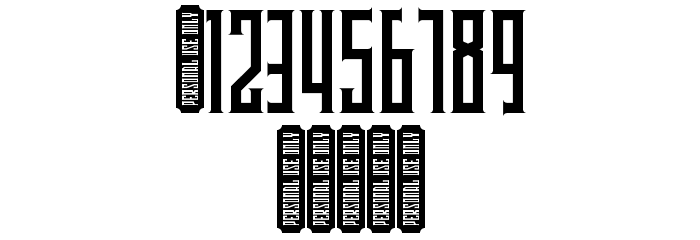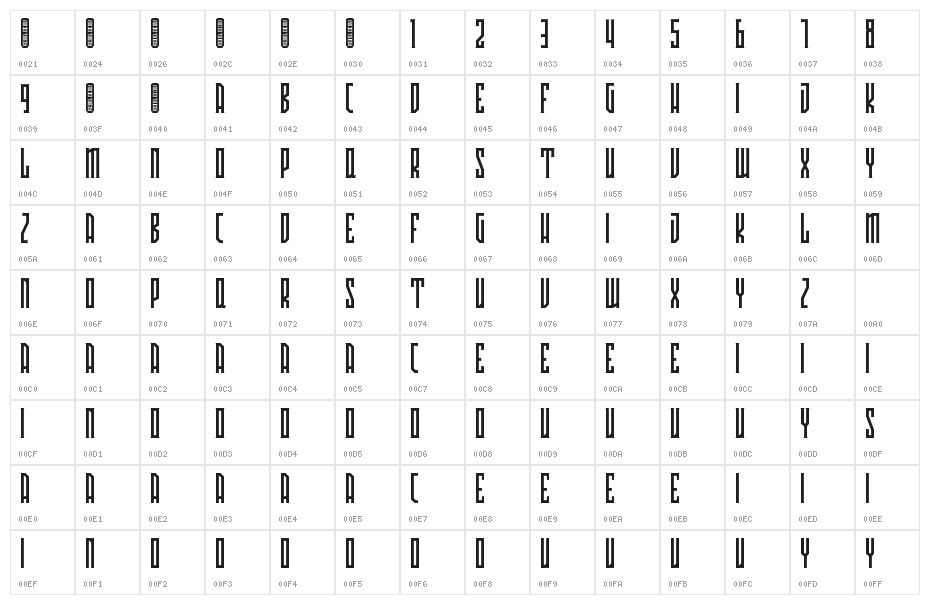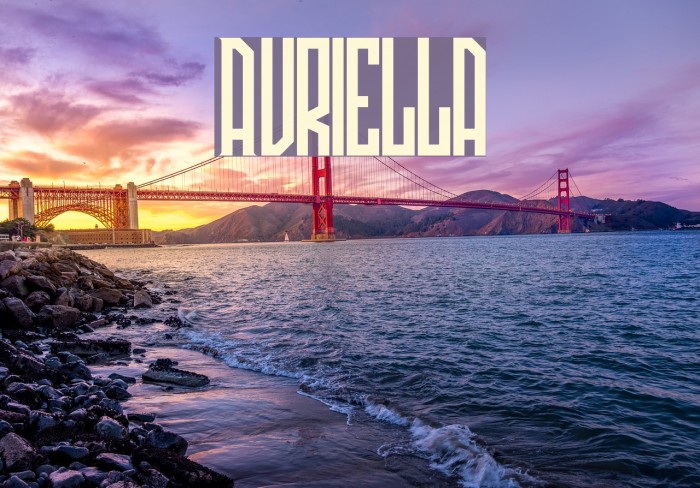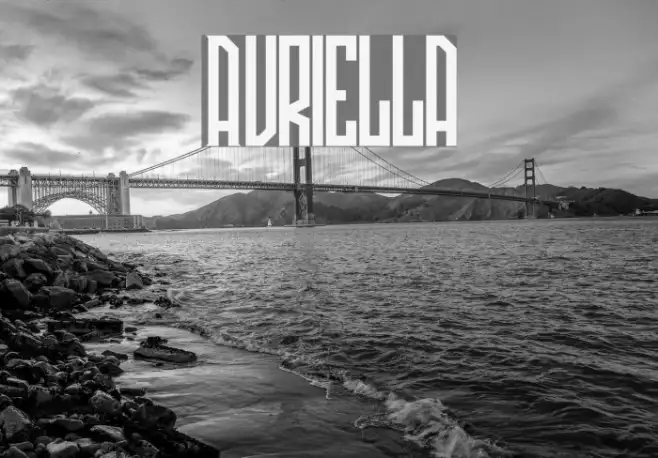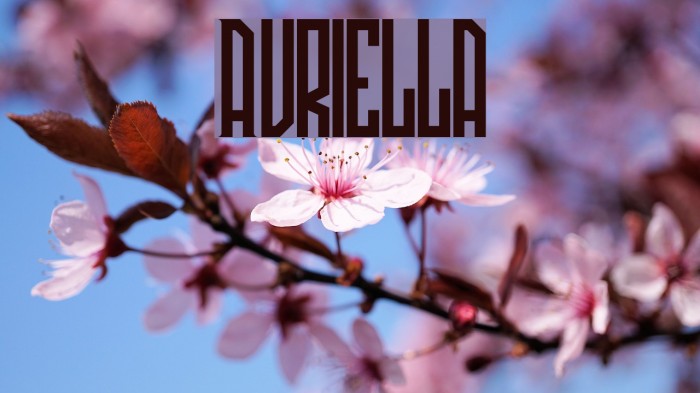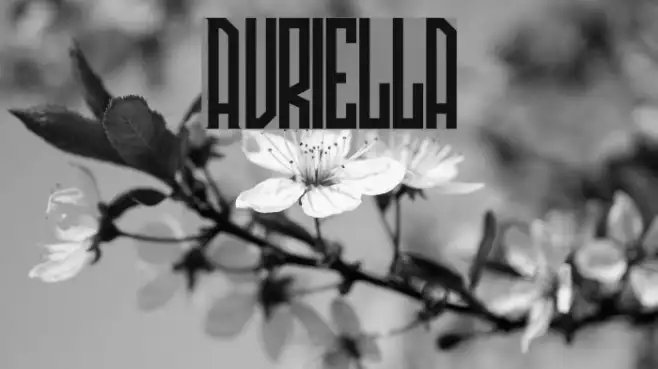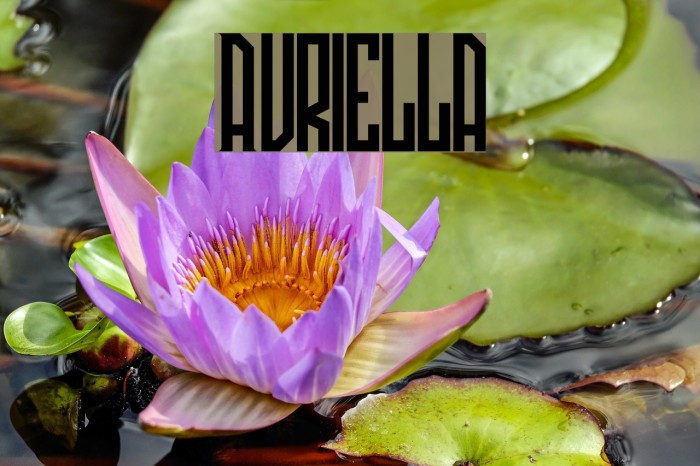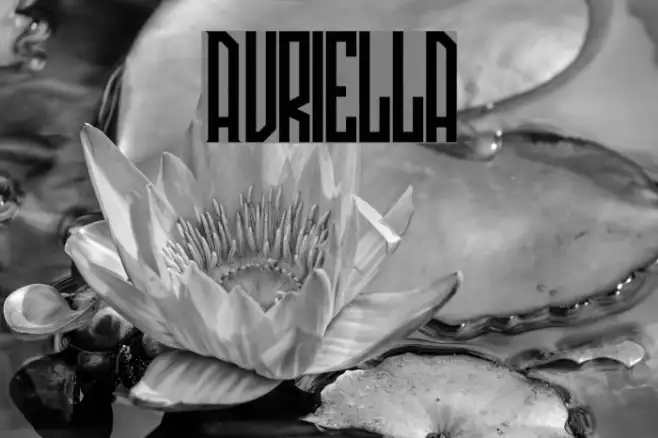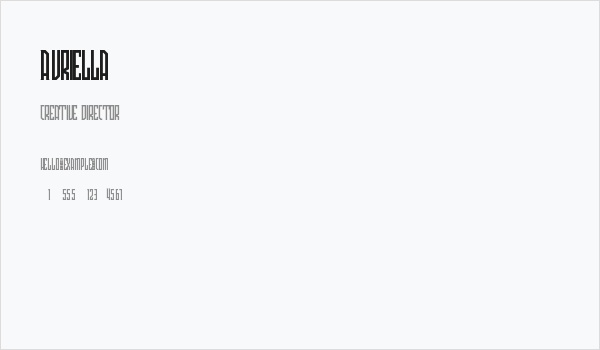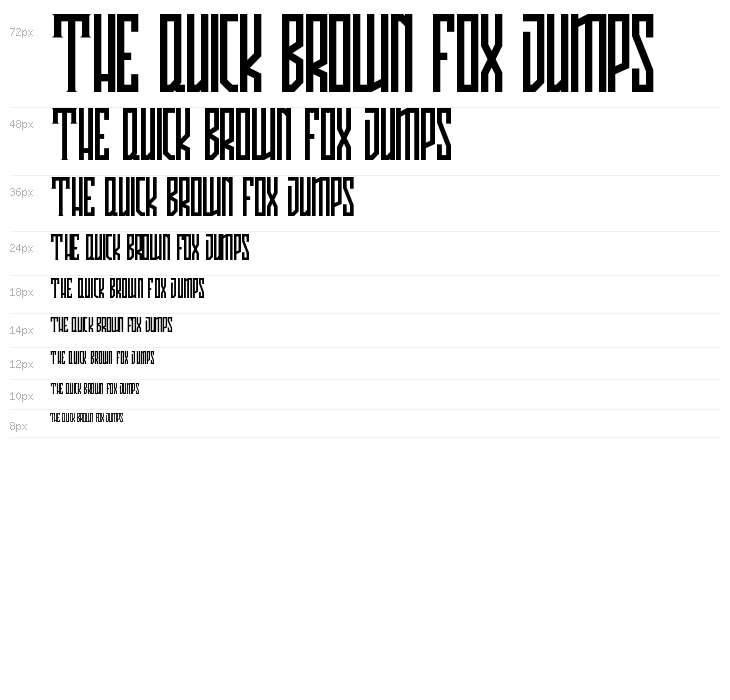
Avriella Font
Avriella Description
This font features a bold and striking design with elongated, narrow characters that convey a sense of modernity and sophistication. The uppercase letters are particularly tall and imposing, while the lowercase letters maintain a consistent height, creating a cohesive look. The numerals are equally bold, matching the overall aesthetic of the alphabet. The font's geometric structure and sharp angles give it a futuristic feel, making it ideal for projects that require a strong visual impact. The spacing between characters is tight, enhancing the font's compact and efficient appearance.